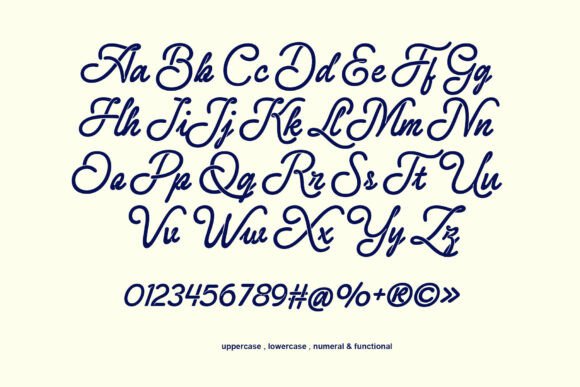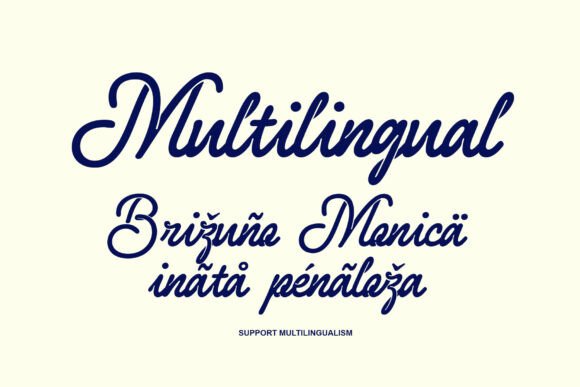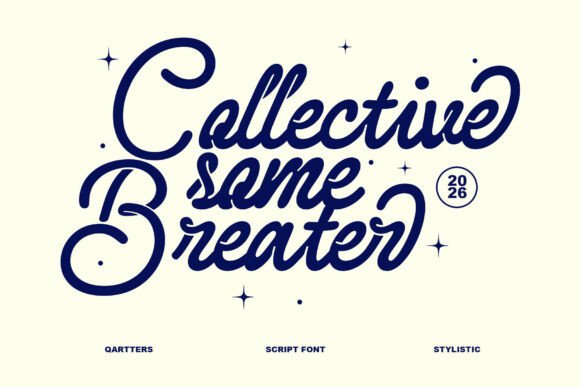
Introduction to Shina Qatline Font
Shina Qatline is an elegant monoline script font that combines luxury, vintage, and modern script styles into one beautiful typeface.
Designed with smooth flowing curves and clean lines, this handwritten script font delivers a classy, stylish, and professional look for any design project This elegant script font is perfect for designers who need a signature font, calligraphy font, or cursive font with a strong visual impact.